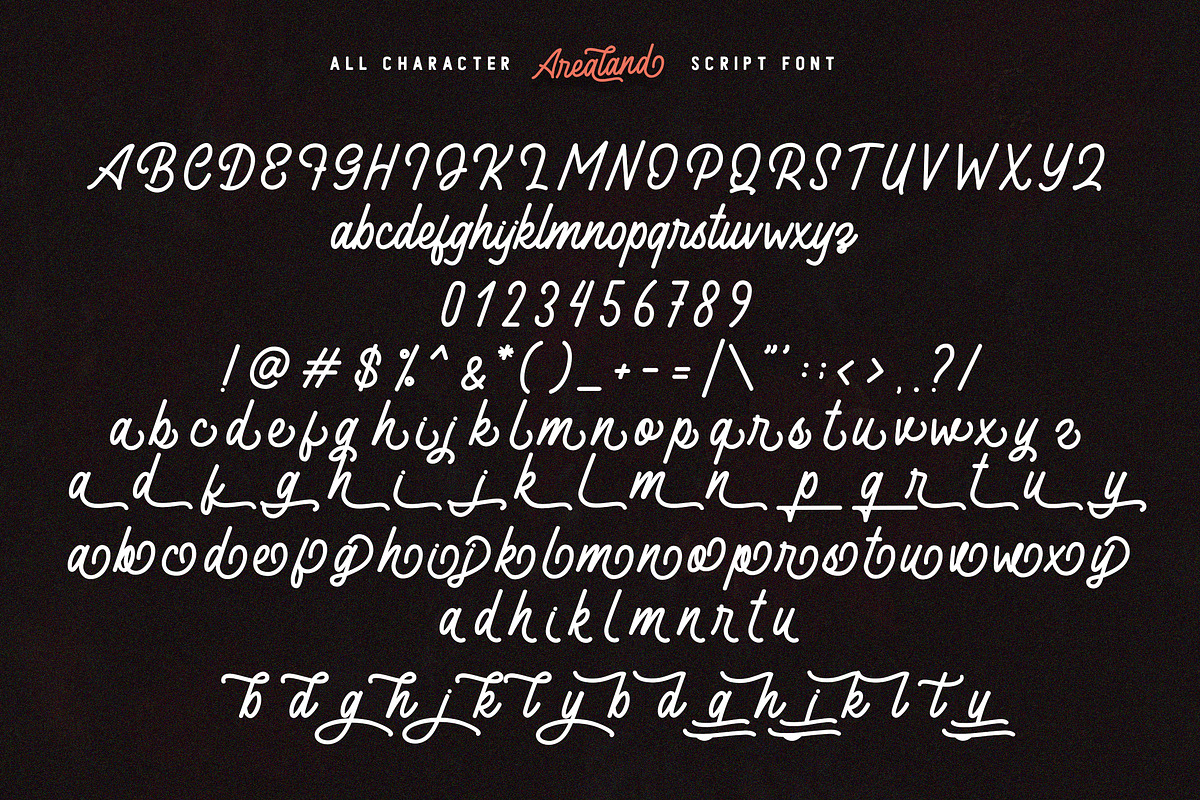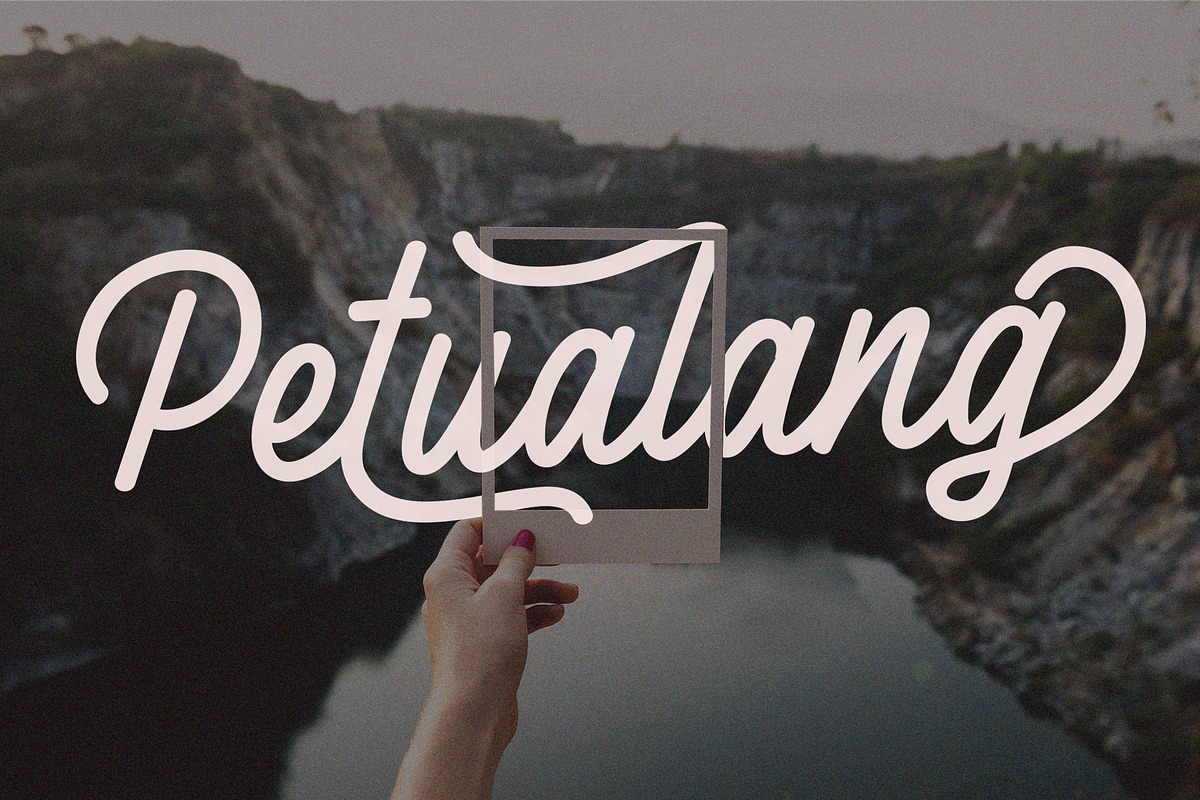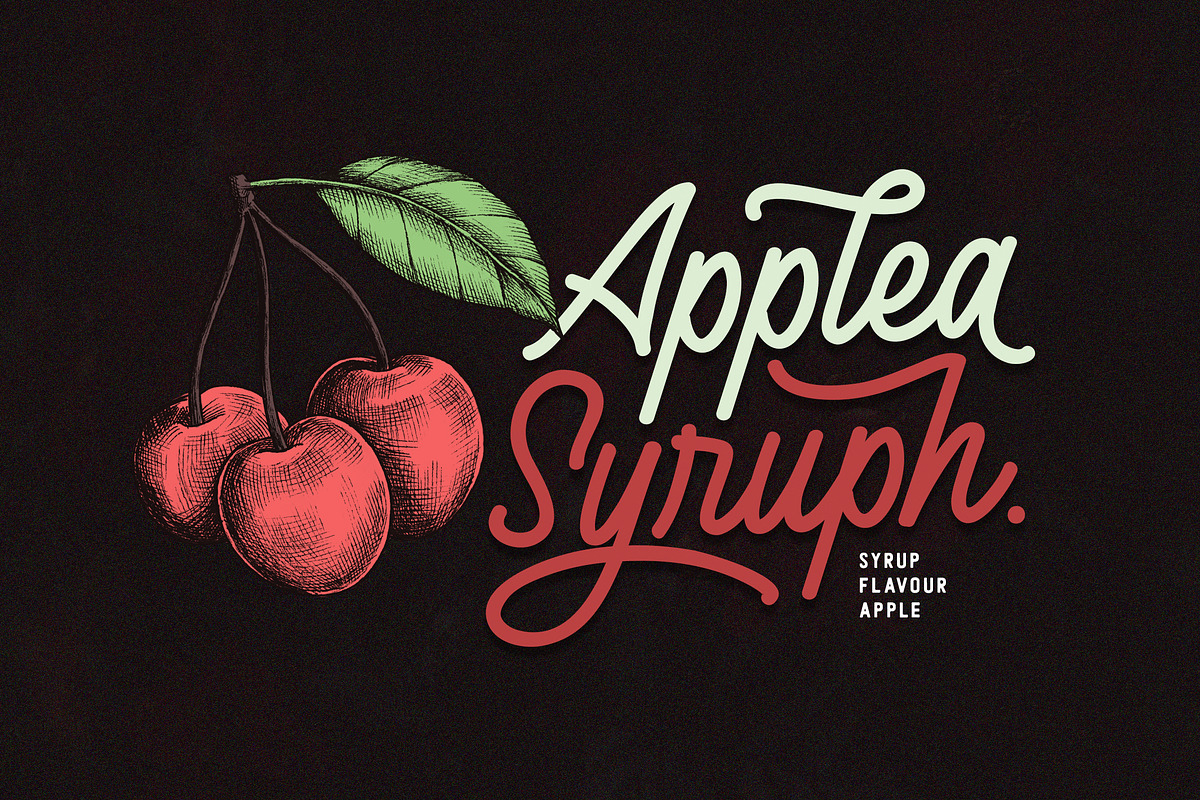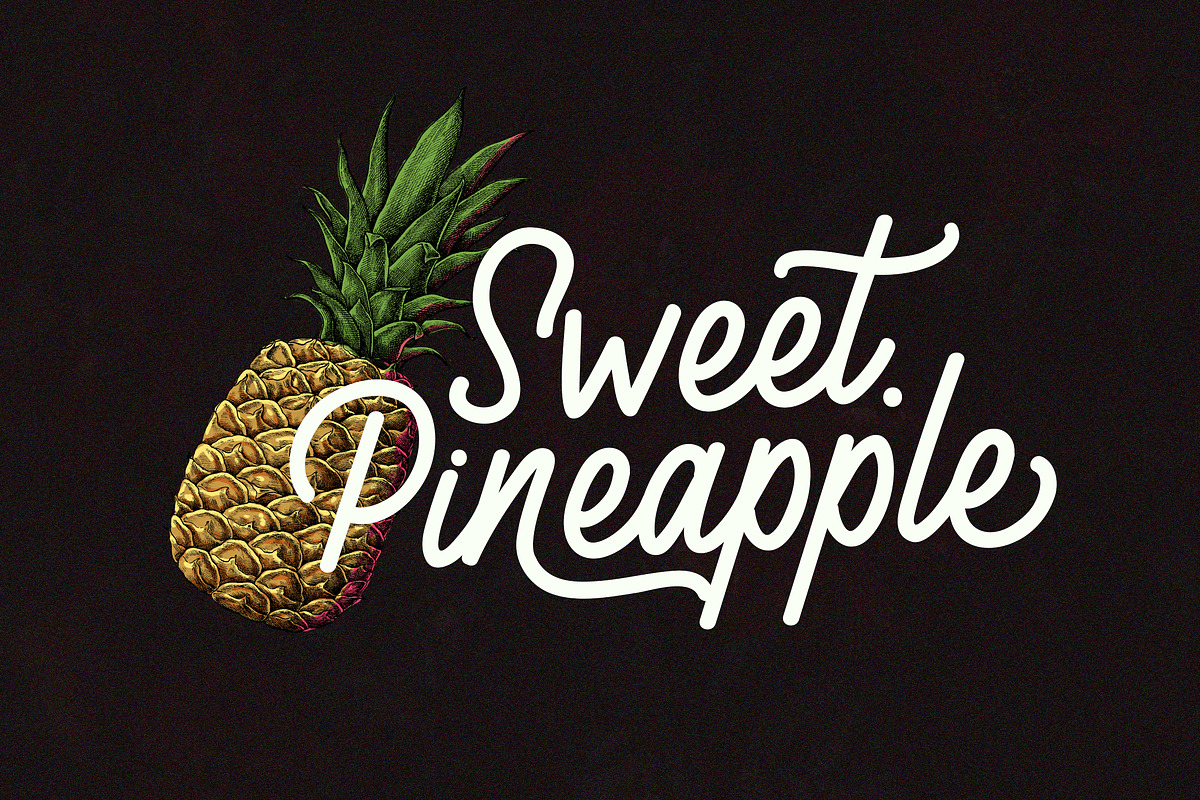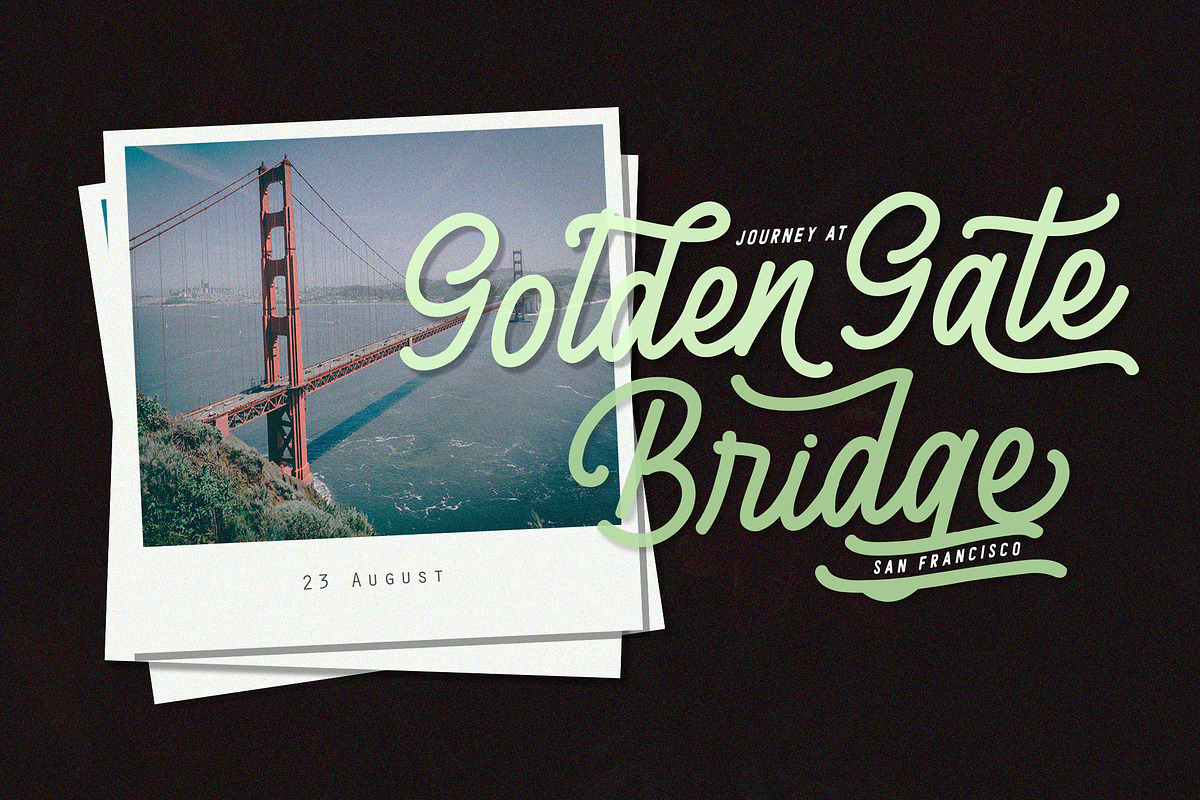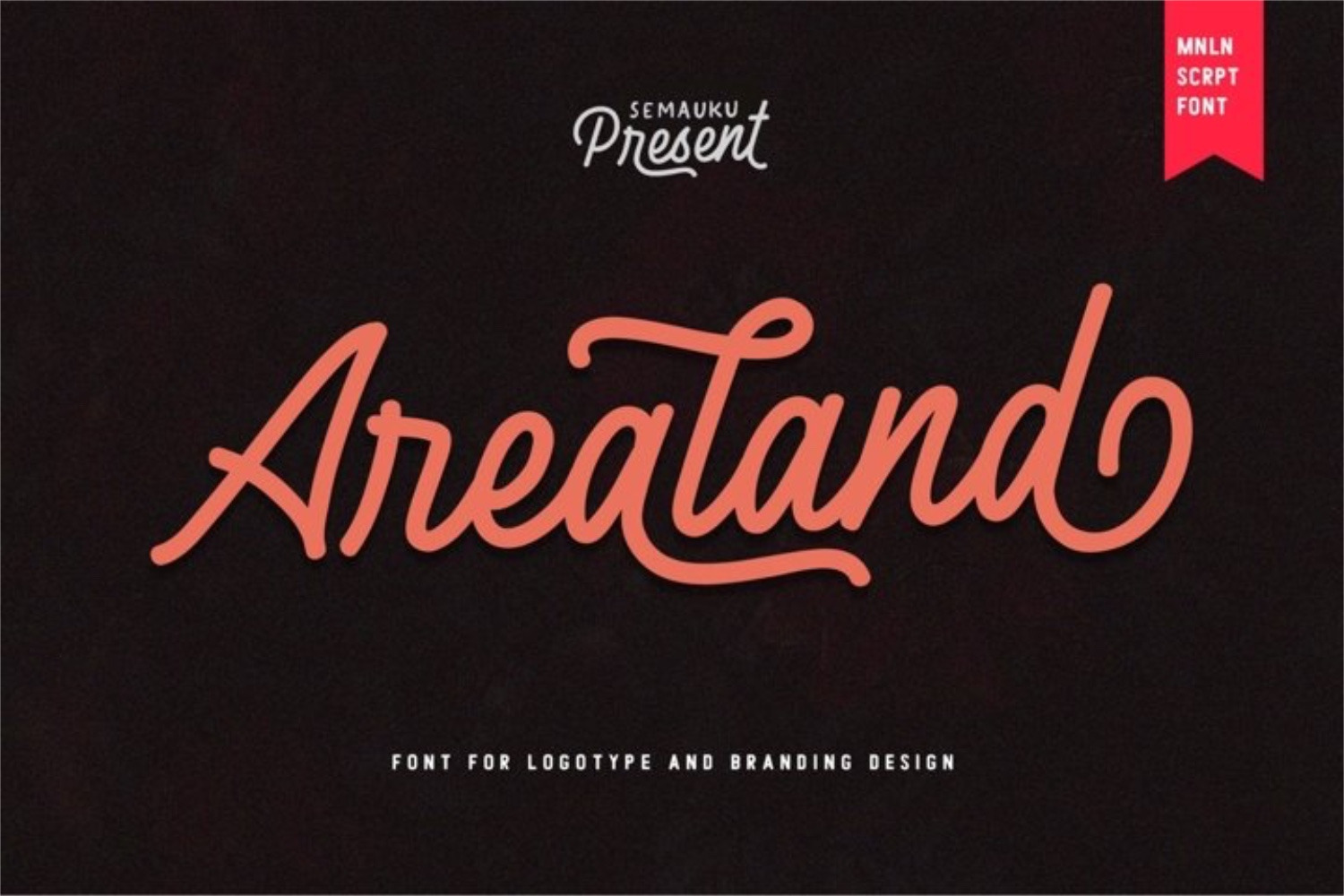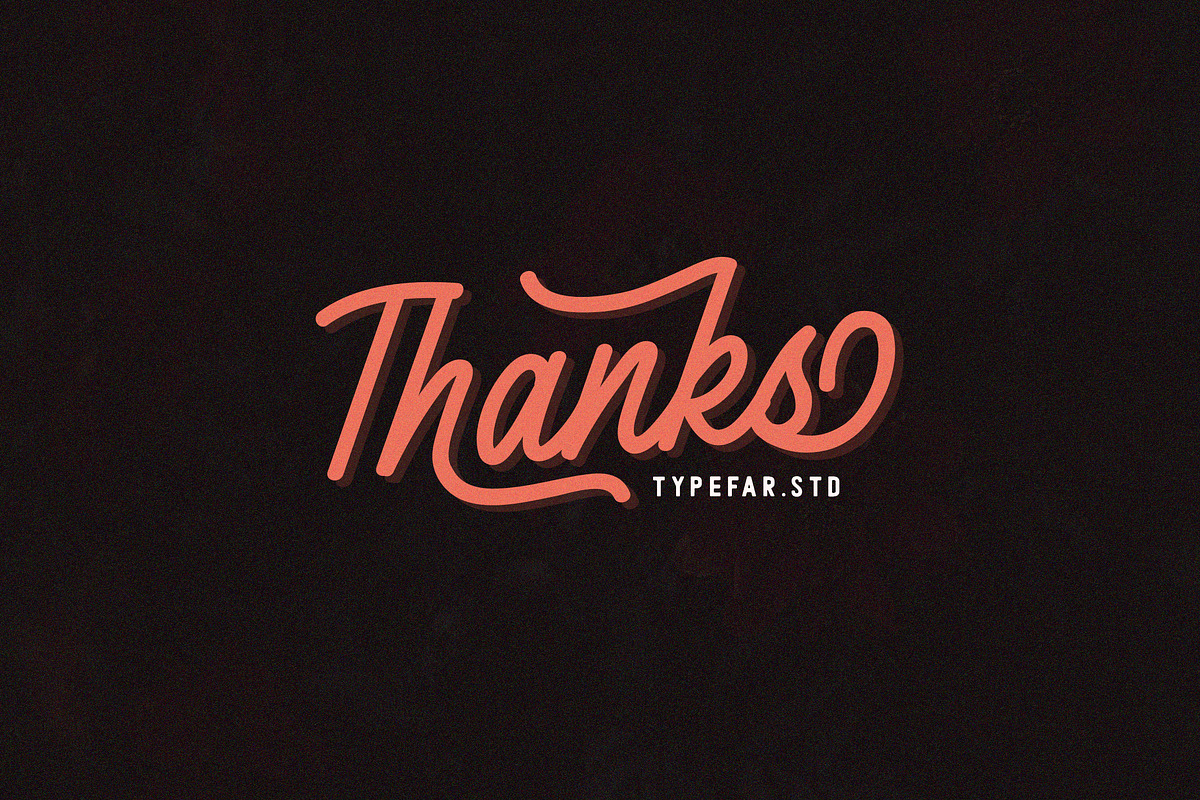
Arealand | Monoline Script Font
Introducing Arealand , Monoline Script Font
Arealand is perfect for logotype and branding. also can creating beautiful vintage typography on any of your projects such as merchandise, logos, posters, calendars, quotes, t-shirts and more. Arealand fonts are also suitable for use in text content because they have good legibility.